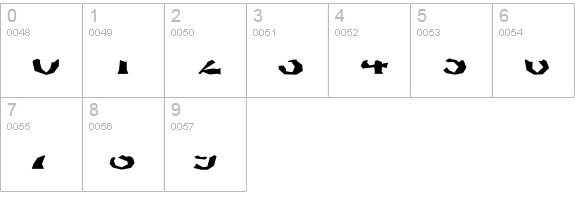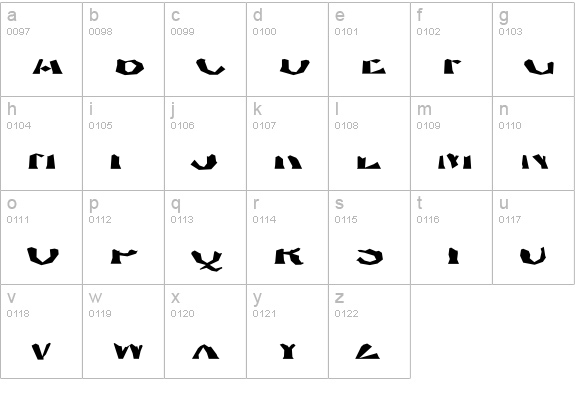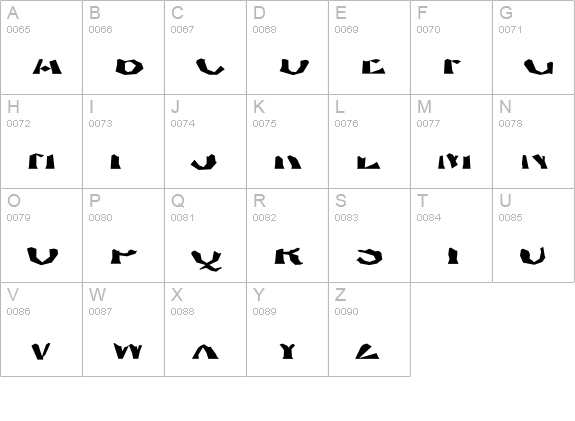
Introducing FHA Brokn Gothic BustdAA NC, a mesmerizing font that effortlessly combines a broken and gothic aesthetic to create a stunning visual impact. This font is perfect for those seeking a unique and edgy look in their design projects. With its intricate details and sharp edges, FHA Brokn Gothic BustdAA NC exudes an air of mystery and intrigue. Each letter is carefully crafted to showcase a broken texture, giving it a distinct and captivating appearance. Its gothic undertones add a touch of darkness and elegance, making it ideal for projects that require a touch of the dramatic. Whether you're designing a poster, a logo, or a website, FHA Brokn Gothic BustdAA NC will surely make a lasting impression. It commands attention and demands to be noticed, making it perfect for headlines, titles, and other prominent elements in your designs. The best part? FHA Brokn Gothic BustdAA NC is freely available to download at FontsMarket.com. This means that you can easily access and use this stunning font without any constraints. Its availability as a free download allows you to explore your creativity without limitations, making it an invaluable asset for designers, artists, and creators. So, why wait? Unleash your imagination and give your designs a bold and expressive touch with FHA Brokn Gothic BustdAA NC. Download it now at FontsMarket.com and elevate your projects to new heights with this captivating and visually striking font.